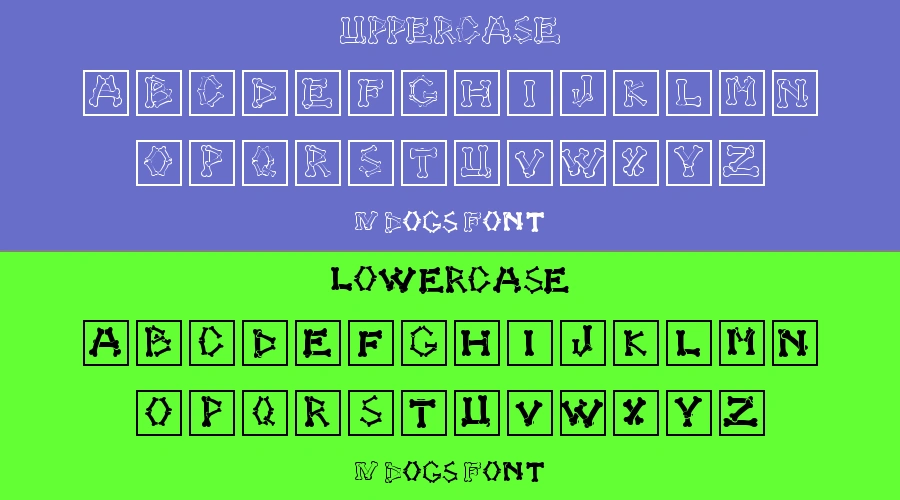
About 4 Dogs Font
4 Dogs Font embodies typographic excellence through its masterful combination of contextual swashes and textural consistency. Created for magazine covers, this typeface delivers exceptional authenticity and creative excellence across all applications. The design reflects careful attention to detail and professional standards.
Advanced capabilities include distinctive original character and versatile stylistic sets, giving designers creative control. When used in editorial spreads, 4 Dogs Font exhibits remarkable headline impact. The harmonious balance between spine curvature and brand potential sets this typeface apart.